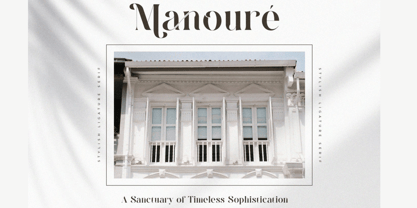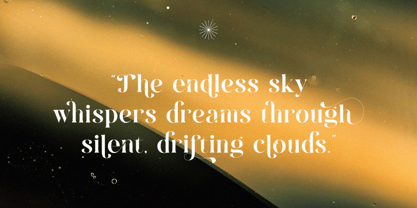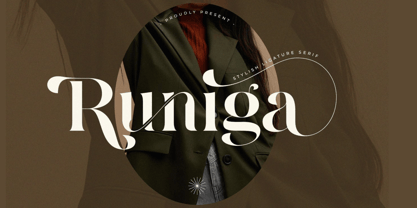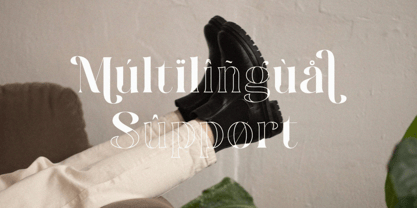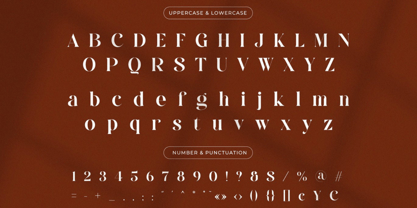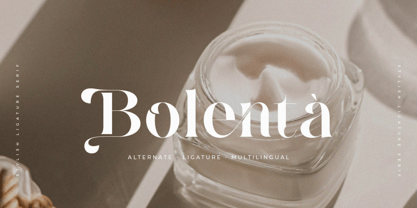
Remgole
by Hasnat Studio
Remgole is a refined serif typeface that blends timeless elegance with modern sophistication. Featuring graceful ligatures, beautiful alternates, and flowing curves, Remgole is designed to elevate visual storytelling in branding, editorial design, and luxury packaging.
With both uppercase and lowercase letters, multilingual support, and expressive stylistic sets, Remgole is ideal for fashion editorials, wedding invitations, logos, magazine headers, and premium social media graphics. Its stylish balance of classic form and contemporary detail makes it the perfect serif for creatives seeking elegance with impact.
Font Features:
• Uppercase & Lowercase Characters
• Elegant Ligatures & Alternates
• Multilingual Language Support
• Sophisticated Serif Structure
• Ideal for Print & Digital Use
Perfect For:
• Fashion & Lifestyle Branding
• Editorial Titles & Magazine Layouts
• Luxury Product Packaging
• Wedding Invitations & Elegant Stationery
• Instagram Quotes & Social Media Design
• Logo Design & Visual Identity Systems
Make every design feel bespoke and beautiful with Remgole—a font that brings grace, structure, and visual charm to every project. Add it to your type toolkit and create confidently with timeless elegance.